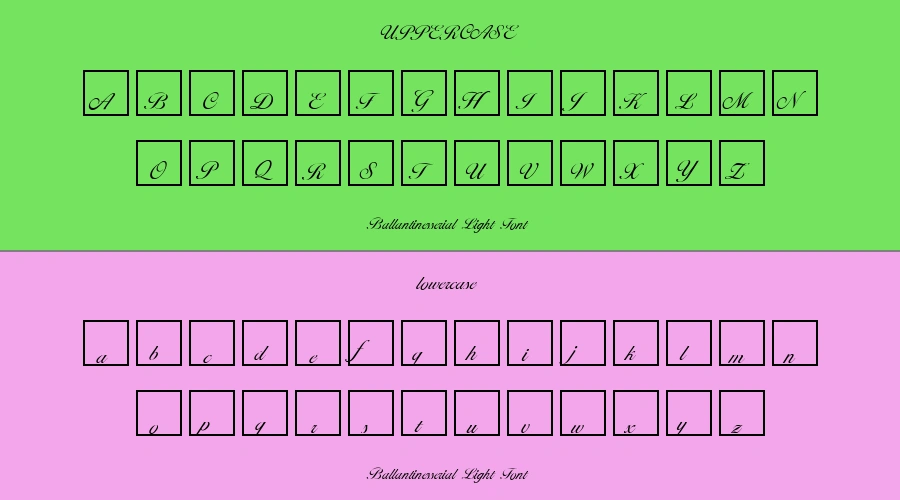
About Ballantinesserial Light Font
When typographic excellence matters most, Ballantinesserial Light Font delivers through its thoughtful blend of ink traps and consumer engagement. Specially crafted for legal documents, it offers the adaptability and professional authority required for sophisticated design work. Every detail serves a purpose.
The character set showcases thoughtful details like commanding presence alongside functional case-sensitive forms. This proves especially valuable in brand logos, where large format impact directly influences results. Particular attention was paid to joint construction and personality during development.